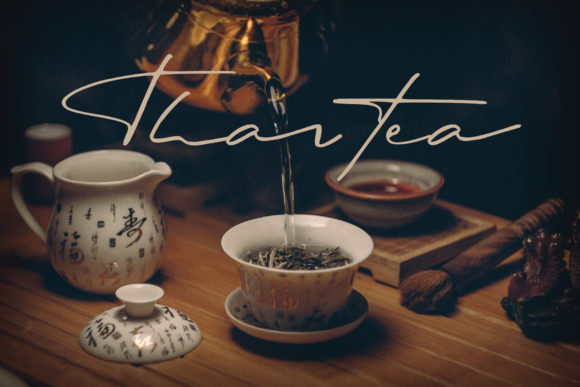
Dive into the realm of authenticity and elegance with Thaitea Font, a script masterpiece meticulously crafted to enchant your creative ventures. This exquisite font family, brainchild of the talented goodigital, exudes a timeless elegance and authentic calligraphy style that will elevate your designs to new heights.
With Thaitea Font, you hold the key to crafting original and outstanding designs that captivate and inspire. Its incredibly classic style, infused with a touch of friendly warmth, makes it the perfect choice for a wide range of projects, from branding and logos to wedding invitations and heartfelt messages.
Imagine the impact of your designs adorned with Thaitea's graceful strokes and elegant curves. Your words will dance with elegance, leaving a lasting impression on your audience. Whether you're a seasoned designer or just starting out, Thaitea Font will effortlessly elevate your work, transforming your creative vision into a reality.
But what truly sets Thaitea Font apart is its versatility. Its ability to blend seamlessly with various design concepts is nothing short of remarkable. Its timeless charm adds a touch of sophistication to vintage-inspired projects, while its contemporary twist lends a modern edge to contemporary designs.
With Thaitea Font, you'll discover a font that transcends time and trends, a font that will become a staple in your creative arsenal. Its beauty and functionality will inspire you to push the boundaries of your creativity, creating designs that resonate with your audience.
So embrace the allure of Thaitea Font, a font that's both classic and contemporary, elegant and friendly. Let its enchanting strokes and elegant curves transform your designs into works of art that capture hearts and leave a lasting impression.